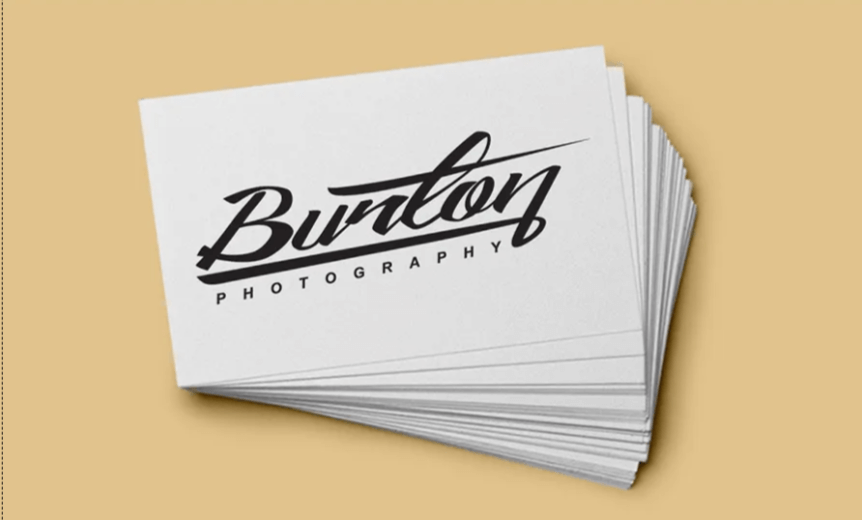
The King City Font – Download Free
The King City Font is a lovely calligraphy and script font. Feydesign created and published the font. On May 23, 2018, the font was made public. The King City Font is a Personal Use font with uppercase, lowercase, numeric, special characters, and alternates. The font has almost 104 glyphs and 167 Characters. The subfamily of this font is regular. The Font family of this font is King City Free Font. The Full font name is King City Free Font.
The King City Font is ideal for logos, branding, invitations, stationery, wedding designs, invitations, logos, business cards, covers, t-shirts, and social media posts, among other things. It will also be utilized to generate a stunning image and text in a variety of colours and styles. This font is also suitable for use on packaging and t-shirt designs.
NameThe King City Font Free
StyleScript, Calligraphy
DesignerFeydesign